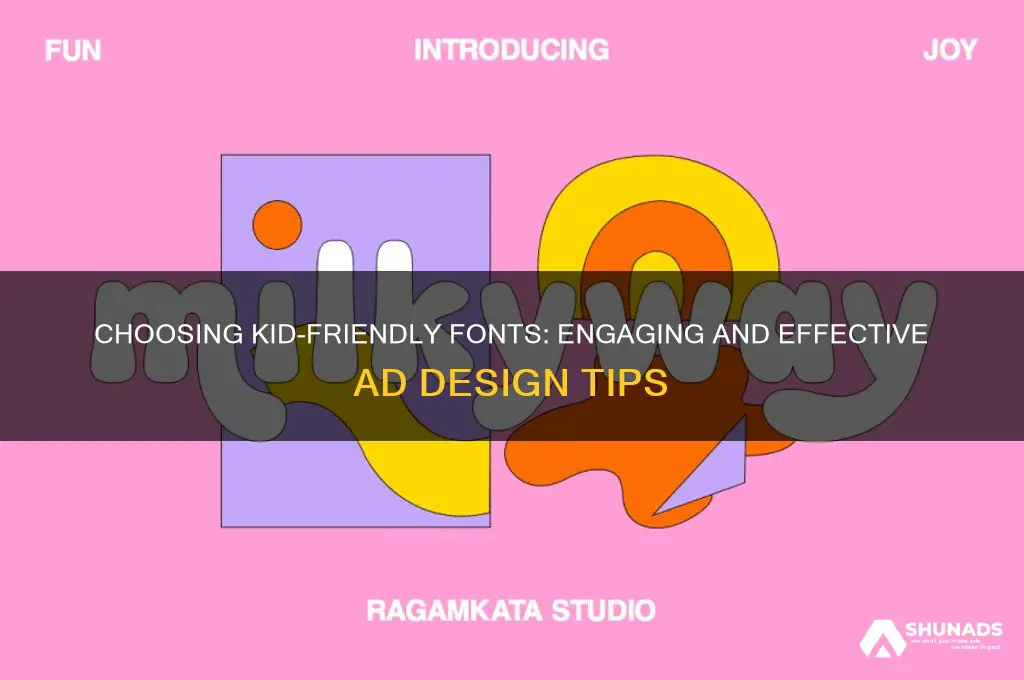
When designing advertisements for kids, choosing the right font is crucial as it directly impacts readability, engagement, and the overall appeal to the target audience. Fonts for children’s ads should be playful, bold, and easy to read, often incorporating rounded edges and whimsical elements to capture their attention. Sans-serif fonts like Arial or Comic Sans are popular choices due to their simplicity and clarity, while handwritten or display fonts can add a fun, imaginative touch. Bright, vibrant colors and varying sizes can further enhance the visual appeal, ensuring the message resonates with young viewers. Ultimately, the font should align with the brand’s personality while being age-appropriate and visually stimulating.
| Characteristics | Values |
|---|---|
| Readability | High contrast, simple letterforms, large x-height |
| Font Style | Sans-serif fonts (e.g., Arial, Helvetica, Futura) |
| Font Size | Large and bold, typically 18-24 points or larger |
| Color | Bright, vibrant colors that appeal to children |
| Letter Spacing | Slightly increased for better legibility |
| Font Weight | Bold or semi-bold for emphasis and visibility |
| Playfulness | Rounded edges, whimsical designs (e.g., Comic Sans, Fredoka One) |
| Consistency | Use the same font family throughout the ad for cohesion |
| Cultural Relevance | Fonts that align with current trends or popular media kids enjoy |
| Simplicity | Avoid overly decorative or complex fonts that may distract |
| Emotional Appeal | Fonts that evoke fun, excitement, or curiosity |
| Accessibility | Ensure fonts are clear and easy to read for all age groups |
| Brand Alignment | Fonts that match the brand’s personality and target audience |
| Digital Compatibility | Web-safe fonts for online ads (e.g., Open Sans, Roboto) |
| Testing | Test fonts with the target audience for effectiveness |
Bright, playful fonts for toys and games ads
Bright, playful fonts are essential for capturing the attention of children in toy and game advertisements. These fonts act as visual candy, instantly signaling fun, excitement, and creativity. Think of them as the first handshake between the product and the child’s imagination. Fonts like Bubblegum Sans, Chalkduster, or Janda Fun Writer are popular choices because their rounded edges, uneven baselines, and whimsical shapes mimic the spontaneity of children’s drawings. For ads targeting ages 3–8, opt for bold, oversized letters with vibrant colors to ensure readability from a distance, whether on a billboard or a tablet screen.
Contrast is key when pairing these fonts with imagery. A bright, playful font should complement, not compete with, the visuals of the toy or game. For example, if advertising a colorful building block set, use a font like Fredoka One in a complementary shade of blue or yellow. Avoid overly intricate fonts that may distract from the product itself. Instead, focus on fonts that echo the energy of the toy—a bouncy, stretchy font for slime, or a blocky, geometric font for construction toys. The goal is to create a seamless visual story that feels like an extension of the play experience.
Age-appropriate font selection is critical for effectiveness. Younger children (ages 3–6) respond best to fonts with exaggerated curves and simple shapes, as these align with their cognitive development and preference for familiarity. Fonts like Comic Neue or Kranky work well here. For older kids (ages 7–12), fonts can be slightly more sophisticated, incorporating subtle gradients or 3D effects to match their growing sense of style. Poppins or Quicksand are great options for this age group, as they balance playfulness with a hint of modernity. Always test fonts with the target age group to ensure they resonate as intended.
Practical tips for implementation include limiting font usage to one or two styles per ad. Overloading an advertisement with multiple playful fonts can create visual chaos. Instead, use variations in size, color, and placement to add dynamism. For digital ads, ensure the font is web-safe or embeddable to avoid rendering issues. Print ads benefit from high-resolution fonts to maintain clarity. Finally, pair playful fonts with short, snappy copy—children’s attention spans are brief, so the message must be immediate and engaging. A well-chosen font can turn a simple ad into an invitation to play.
Bold, simple fonts for educational product promotions
Bold, simple fonts are the unsung heroes of educational product promotions aimed at kids. Their primary function is to capture attention without overwhelming young minds. Children aged 3–12, the core demographic for many educational products, process visual information differently than adults. Research shows that sans-serif fonts like Arial, Helvetica, or Montserrat are easier for this age group to read due to their clean lines and lack of decorative flourishes. These fonts reduce cognitive load, allowing kids to focus on the message rather than deciphering the text. For instance, a math workbook ad using bold, rounded letters like those in the "Fredoka One" font can make numbers and equations feel approachable and fun.
Selecting the right font size and color is as critical as the font style itself. For preschoolers (ages 3–5), opt for font sizes of 36pt or larger to ensure readability from a distance. Bright, contrasting colors like yellow on blue or white on red enhance visibility and engagement. For older kids (ages 6–12), font sizes can be reduced to 24–30pt, but maintain boldness to keep the text prominent. Pairing a bold font like "Poppins" with a playful icon or illustration can reinforce the educational theme without clutter. For example, a science kit ad might use a bold, uppercase font in vibrant green to mimic a lab environment, making the product instantly recognizable.
Sans-serif fonts are generally better for kids’ ads because they are simpler, cleaner, and easier for young readers to recognize.
Handwritten fonts like Reenie Beanie or Architect’s Daughter can be fun and engaging for kids, but ensure they remain legible for the target age group.
Font size is crucial—use larger, bold fonts to grab attention and make the text easy for kids to read, especially for younger audiences.
Colorful fonts can make ads more appealing to kids, but ensure the colors contrast well for readability and align with the overall design theme.